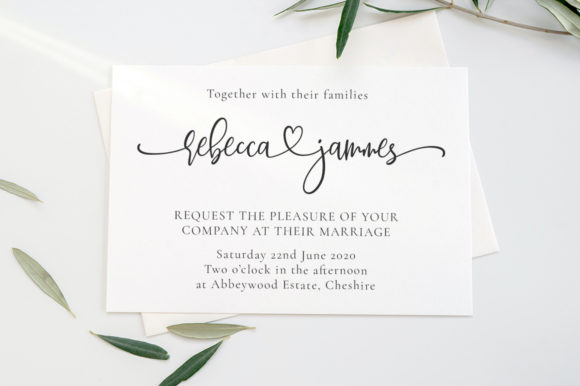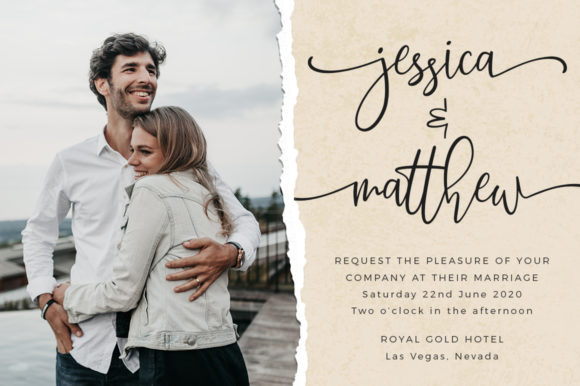
Butter Jelly Font
db-ku.com - Script & Handwritten -- Butter Jelly is a sweet, soft hand-lettered handwritten font. Fall in love with its authentic feel and use it to create gorgeous wedding invitations, beautiful stationary art, eye-catching social media posts, and cute greeting cards.